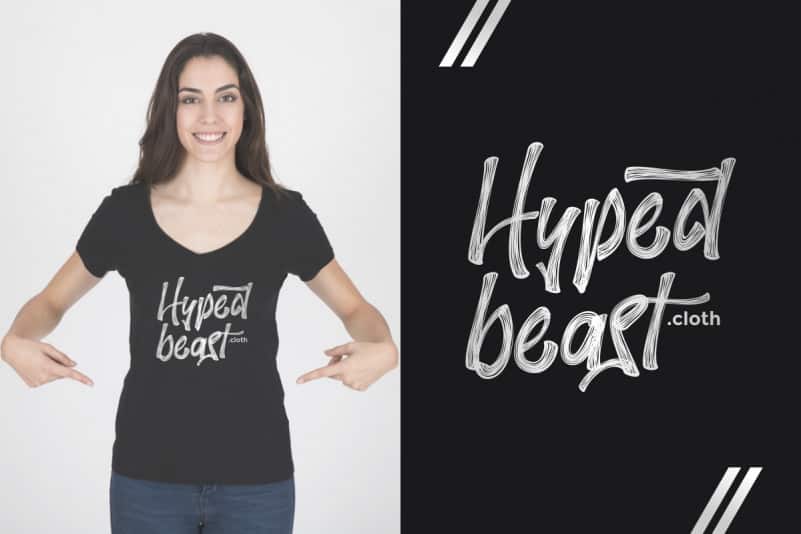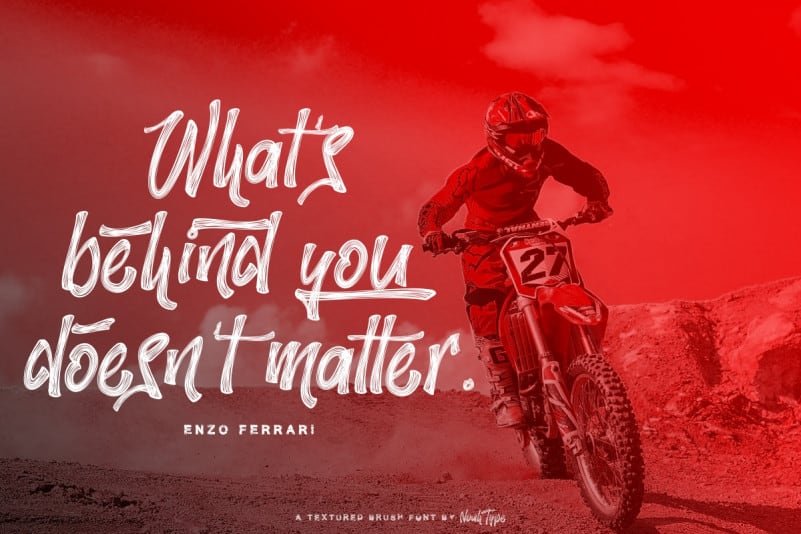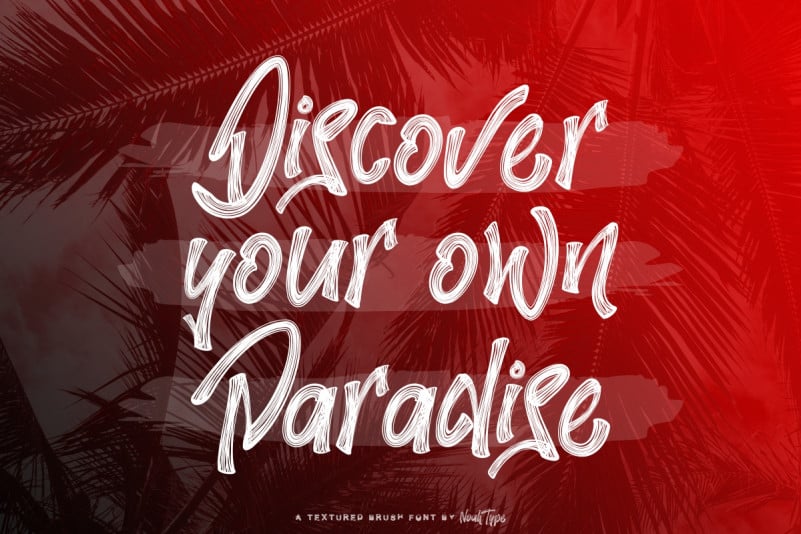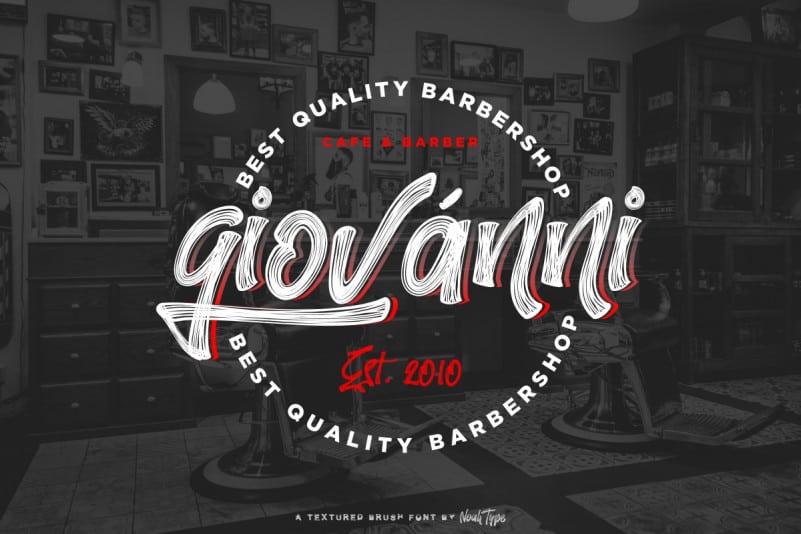
KillingOni Brush Font
KillingOni Brush Font is an awesome grunge vintage brush font with a unique style and bold typography lines style. This font is crafted carefully in every its single scratch, created to look as close to a natural brush so that it can create the perfect combination on each glyph. When we make this font, we really want to create a touch that is so free-flowing that it gives a natural impression on its use later. For example, if you want letter ‘s’ that has a flow sketch with letter ‘t’, you can find it in ‘st’ ligature glyph (just type in the text form below for trying). This awesome script is for anyone who need unique textured style for their designs.
KillingOni Brush Font includes full set of Uppercase and Lowercase Basic Characters, Numerals and Punctuation. Also it contains ligatures and a lot of stylistic alternates characters to perfectly make awesome look that add more aesthetic fonts to perfect your extraordinary project.